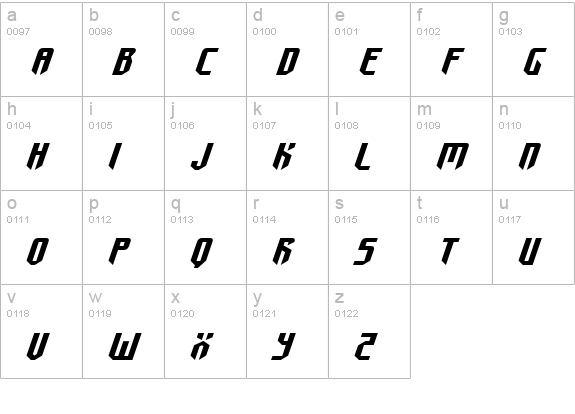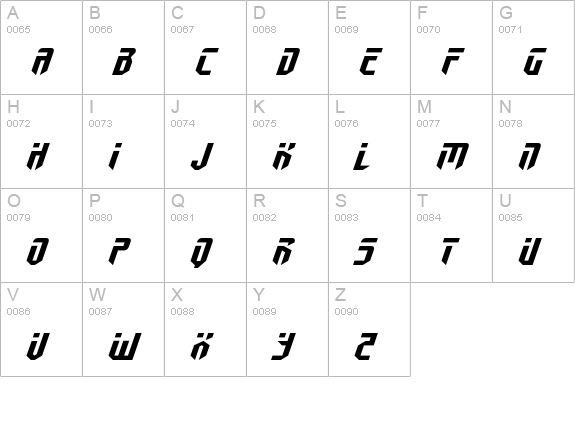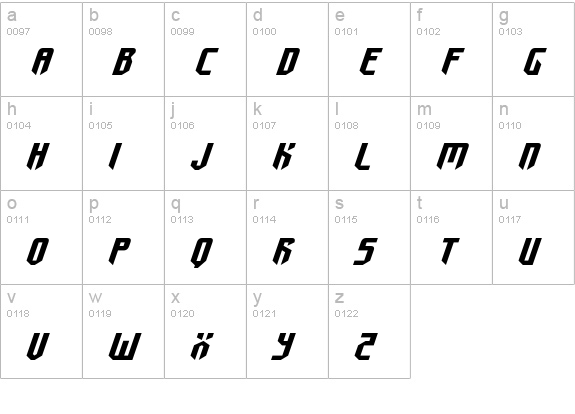
Fedyral II Expanded Italic is a distinctive, extended-width, italic variant in the Fedyral typeface family \xE2\x80\x94 well suited to design and typography projects.
Fedyral II Expanded Italic font is a stunning and elegant typeface that exudes sophistication and style. With its sleek and modern design, this font is perfect for adding a touch of luxury to your projects. The italic style adds a sense of movement and flair, making it ideal for headings, quotes, and other attention-grabbing text. What sets Fedyral II Expanded Italic font apart is that it is not only visually striking but also completely free to download. That's right, you can enhance your designs with this exquisite font without spending a dime. Simply head over to FontsMarket.com to get your hands on this premium typeface for free. Whether you're working on a branding project, website design, or any other creative endeavor, Fedyral II Expanded Italic font will elevate your work to the next level. Download it today and let your creativity shine with this beautiful and versatile typeface.